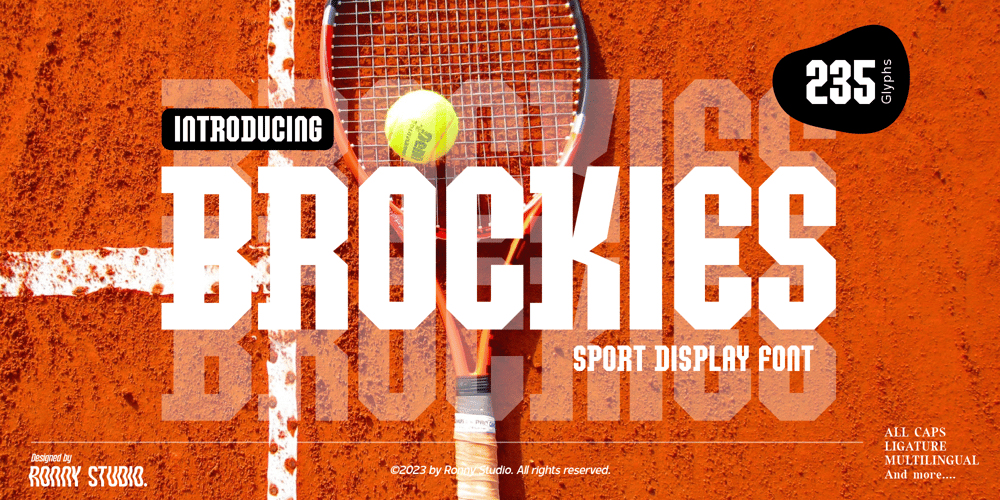
Brockies Font Family was designed by Rony Rizki Jaya and published by Ronny Studio. Brockies contains 2 styles and family package options. Brockies is a sporty, strong, and elegant typeface, with a college style. Inspired by design styles that are currently popular, this is the answer to every need for ideas that you will pour in this modern era, with a thick and sturdy style in each letter as if this font has a soul in it.It excels on posters, social media, headlines, large format print – and anywhere else you want attention.Features :- Lowercase & Uppercase ( All Caps )- numbers and punctuation- multilingual- Ligature- alternates- PUA encodedPlease contact us if you have any questions. Enjoy Crafting and thanks for supporting us! :)Thank you